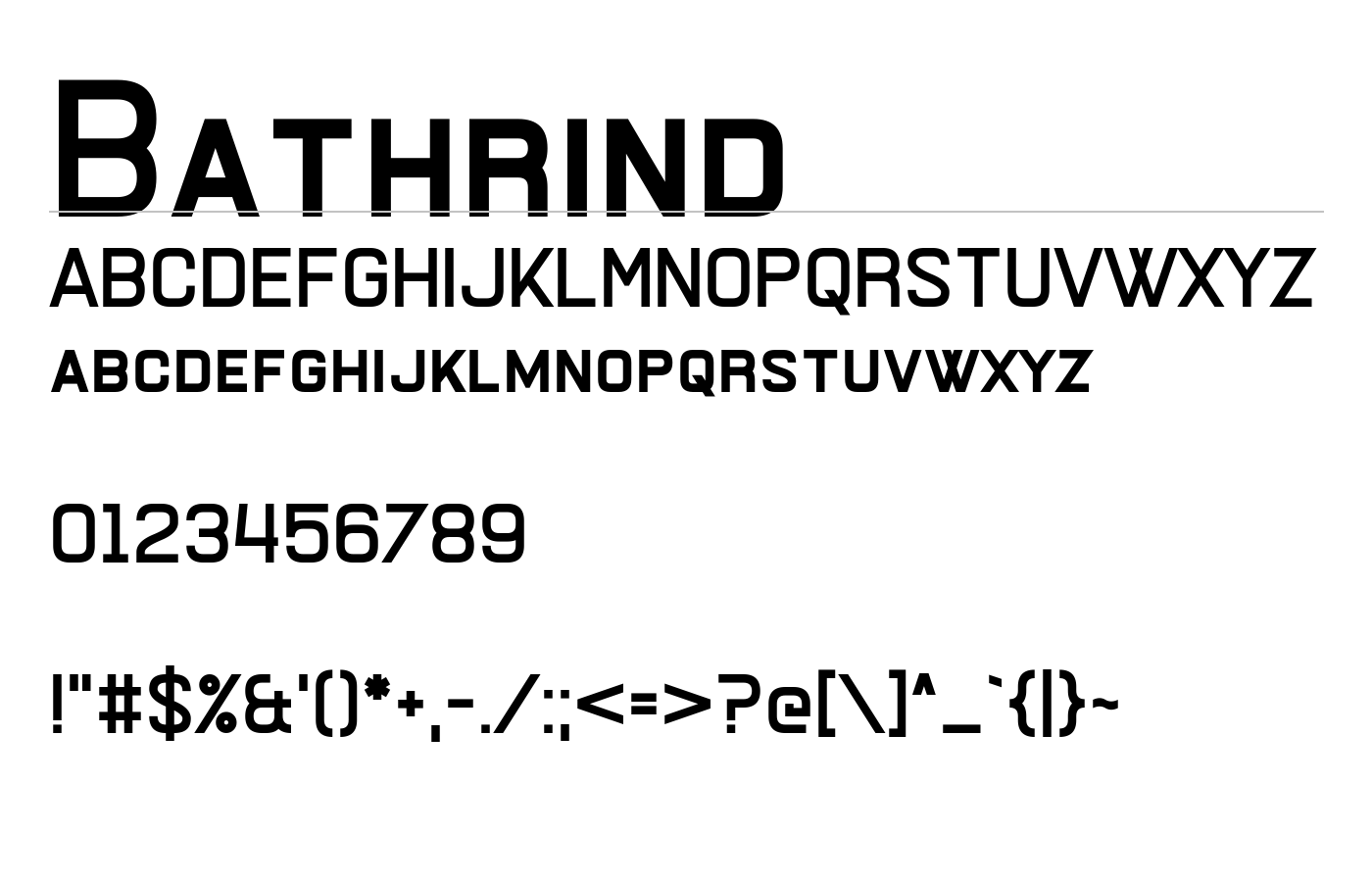
Bathrind is a modern, sans serif font characterized by its clean, geometric shapes and slightly condensed width, giving it a compact yet clear appearance. With medium stroke contrast and a sturdy, squared-off structure, it conveys a contemporary and professional feel, making it ideal for tech, branding, and editorial uses where clarity and a modern edge are important. This font works well in headlines, logos, and digital interfaces due to its strong presence and easy readability.
Bathrind Font
About Bathrind Font
| Designer | Allison James |